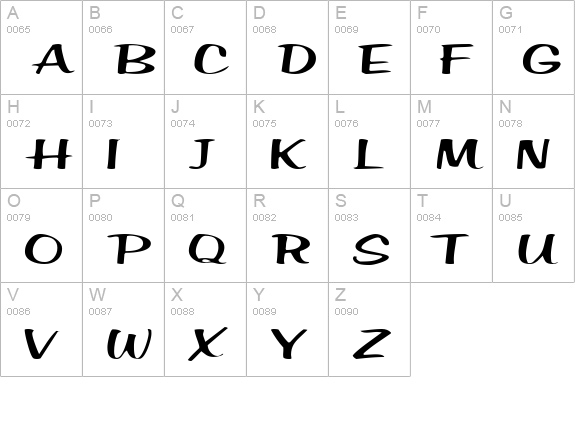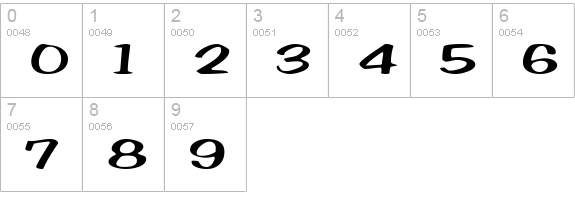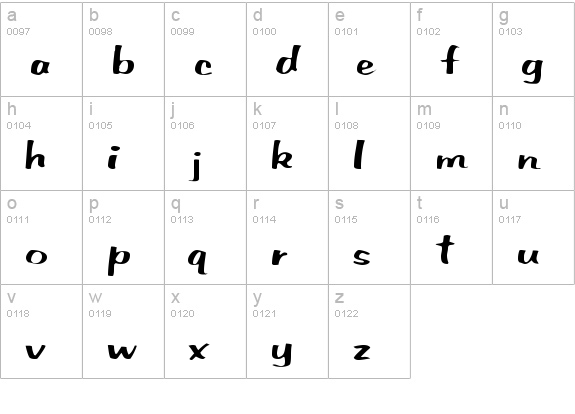
SeldaneScript Font Details
Introducing SeldaneScript, a captivating and versatile font that effortlessly combines elegance and playfulness. This exquisite typeface is designed to add a touch of sophistication to any project, while its whimsical curves and graceful strokes infuse a sense of creativity and charm. SeldaneScript is the perfect choice for those seeking a font that embodies both professionalism and a hint of whimsy. Whether it's for a wedding invitation, a greeting card, a logo, or any other creative endeavor, this font will undoubtedly leave a lasting impression on your audience. One of the best features of SeldaneScript is that it is freely available to download at FontsMarket.com. This means that you can easily access this stunning font and elevate your designs without any cost or hassle. With just a few clicks, you can start incorporating the beauty and versatility of SeldaneScript into your projects. The attention to detail in SeldaneScript is truly remarkable. Every letter is carefully crafted to ensure a seamless flow and aesthetic appeal. The elegant and elongated strokes effortlessly connect, creating a harmonious and visually pleasing design. The generous spacing between characters ensures legibility and readability, even at smaller sizes. SeldaneScript offers a wide range of stylistic alternates and ligatures, allowing you to customize and personalize your designs to perfection. Whether you're looking for a more traditional look or a contemporary twist, this font provides endless possibilities to bring your creative vision to life. With its versatility and timeless appeal, SeldaneScript is suitable for a variety of design projects. From branding and packaging to invitations and social media graphics, this font adds a touch of sophistication and elegance that will leave a lasting impression on your audience. Download SeldaneScript for free at FontsMarket.com today and unlock the endless possibilities of this remarkable font. Elevate your designs, captivate your audience, and let your creativity shine with SeldaneScript.